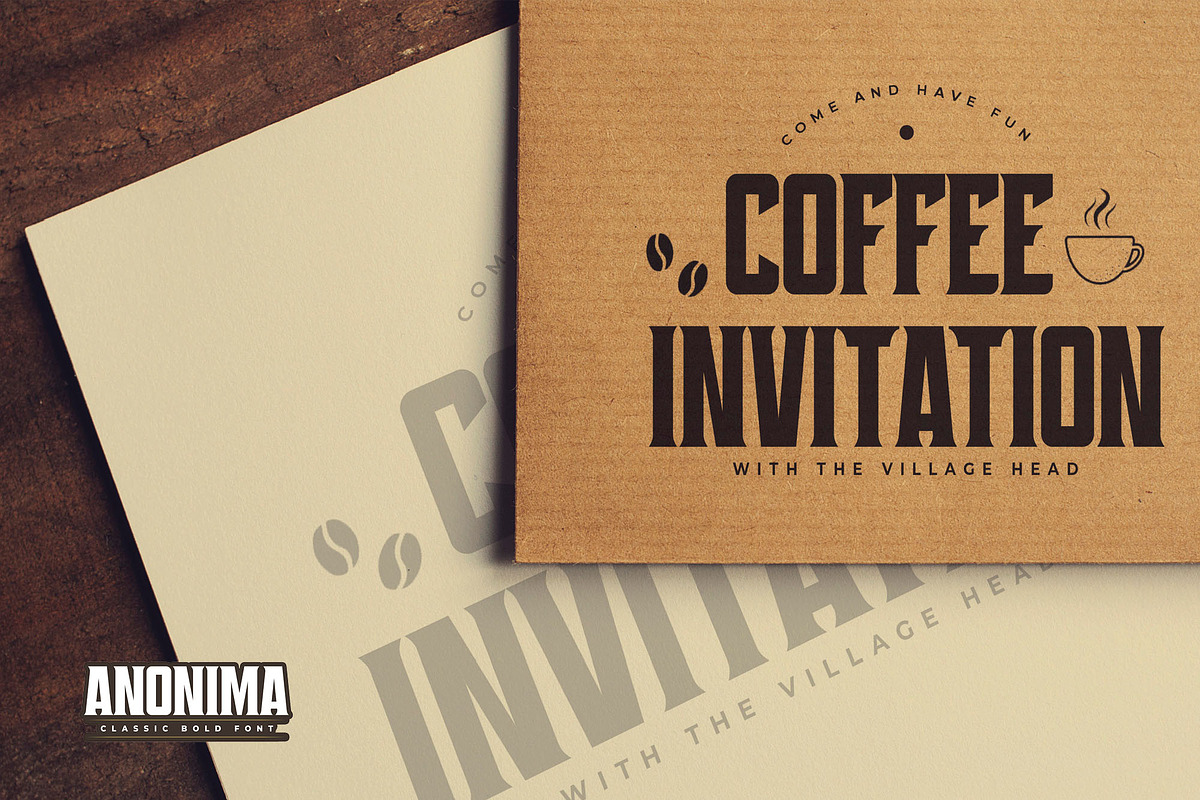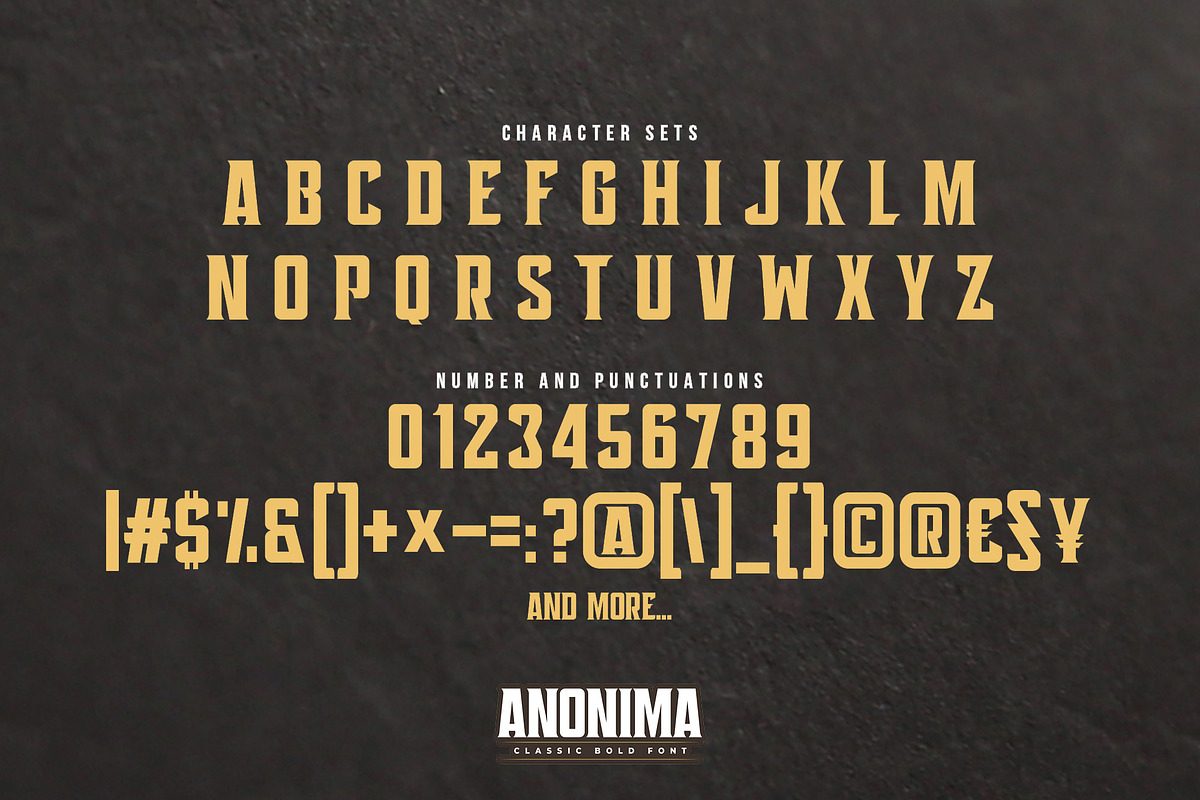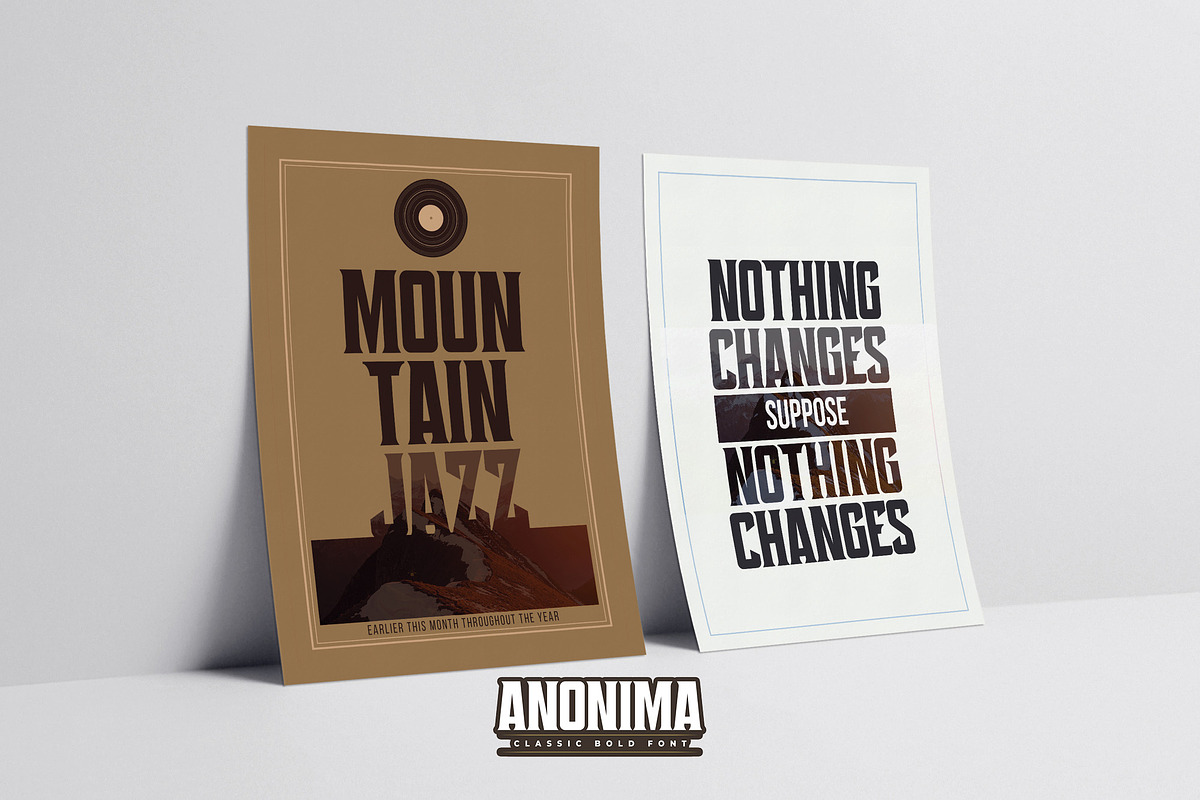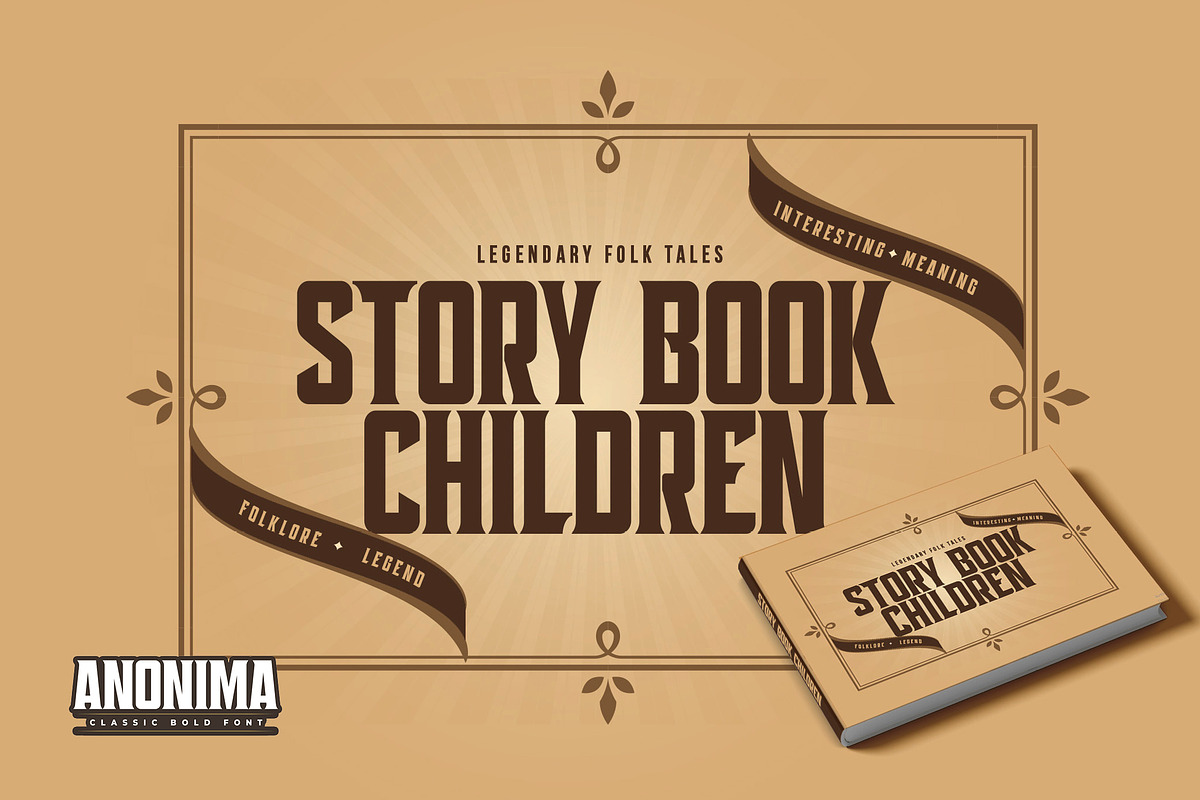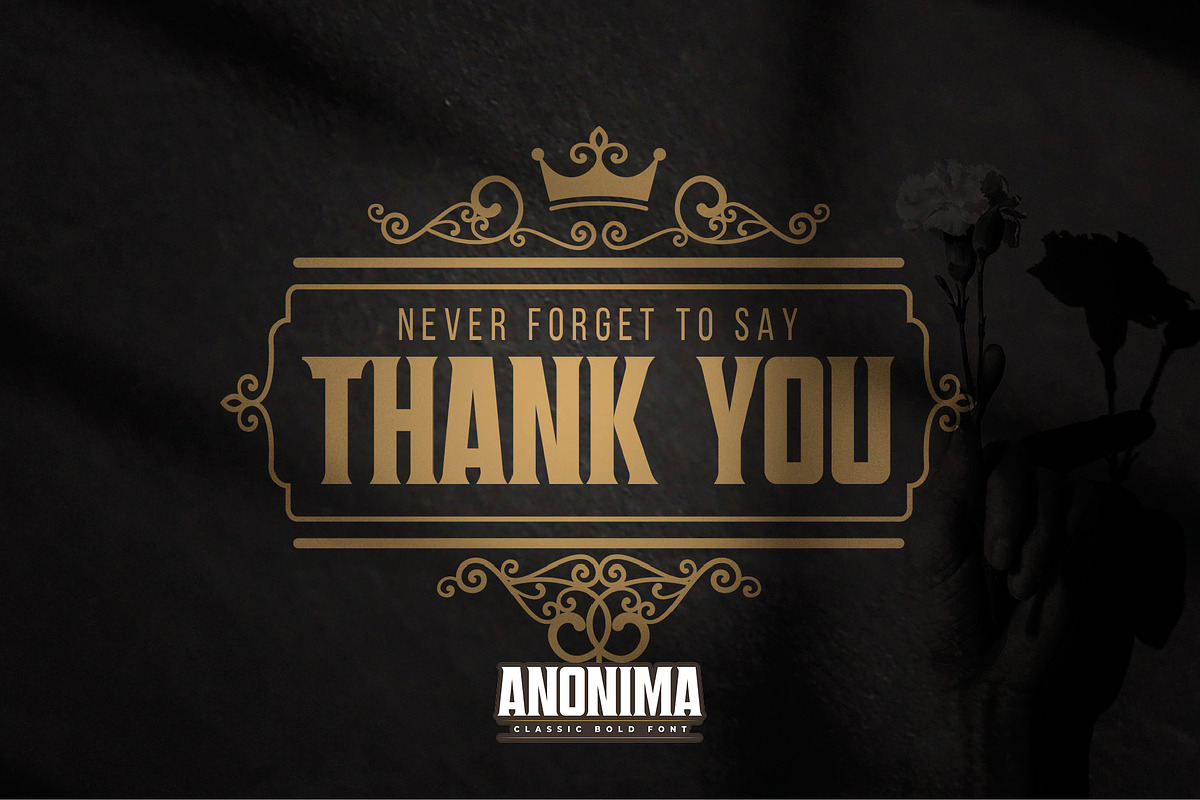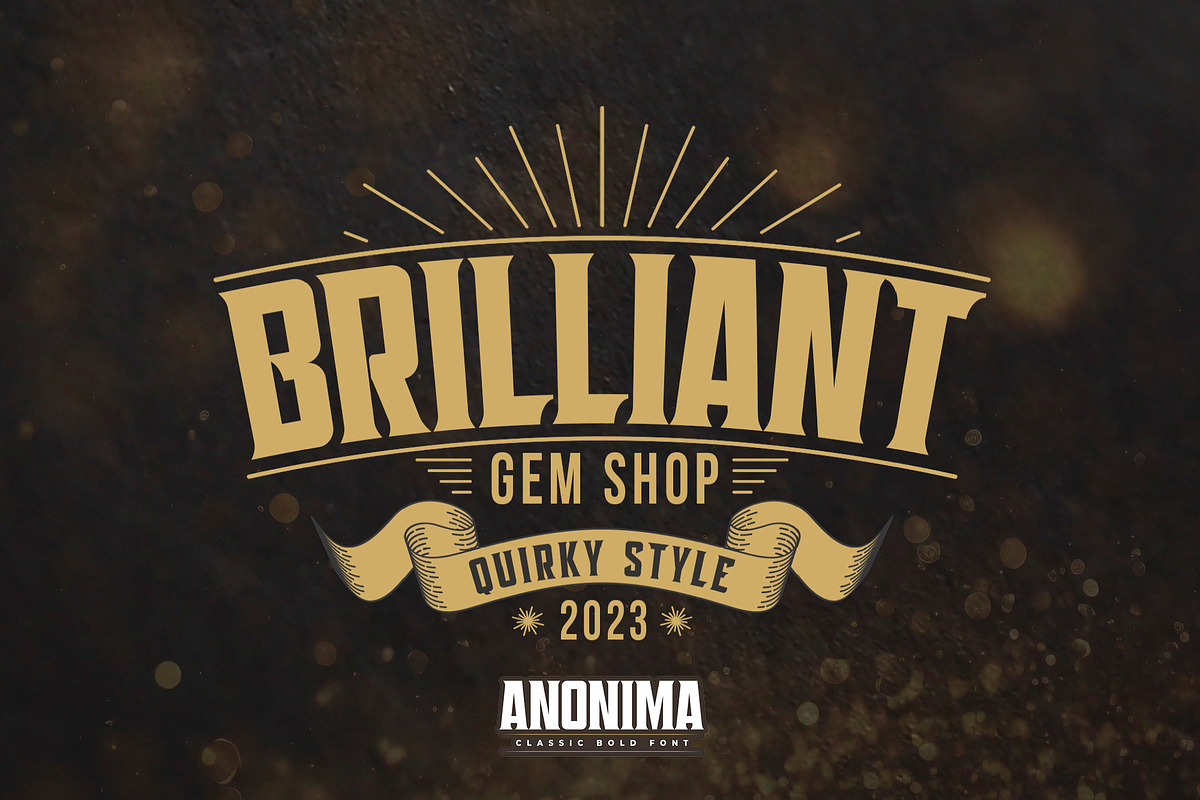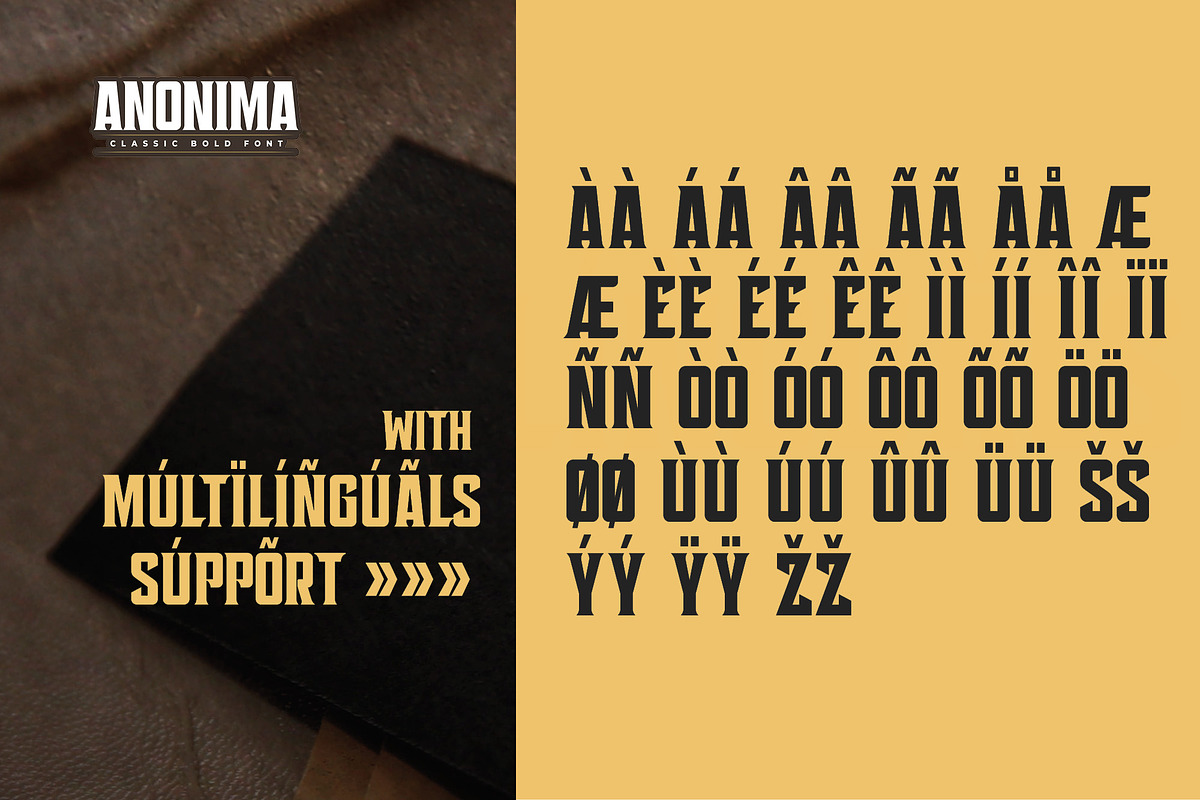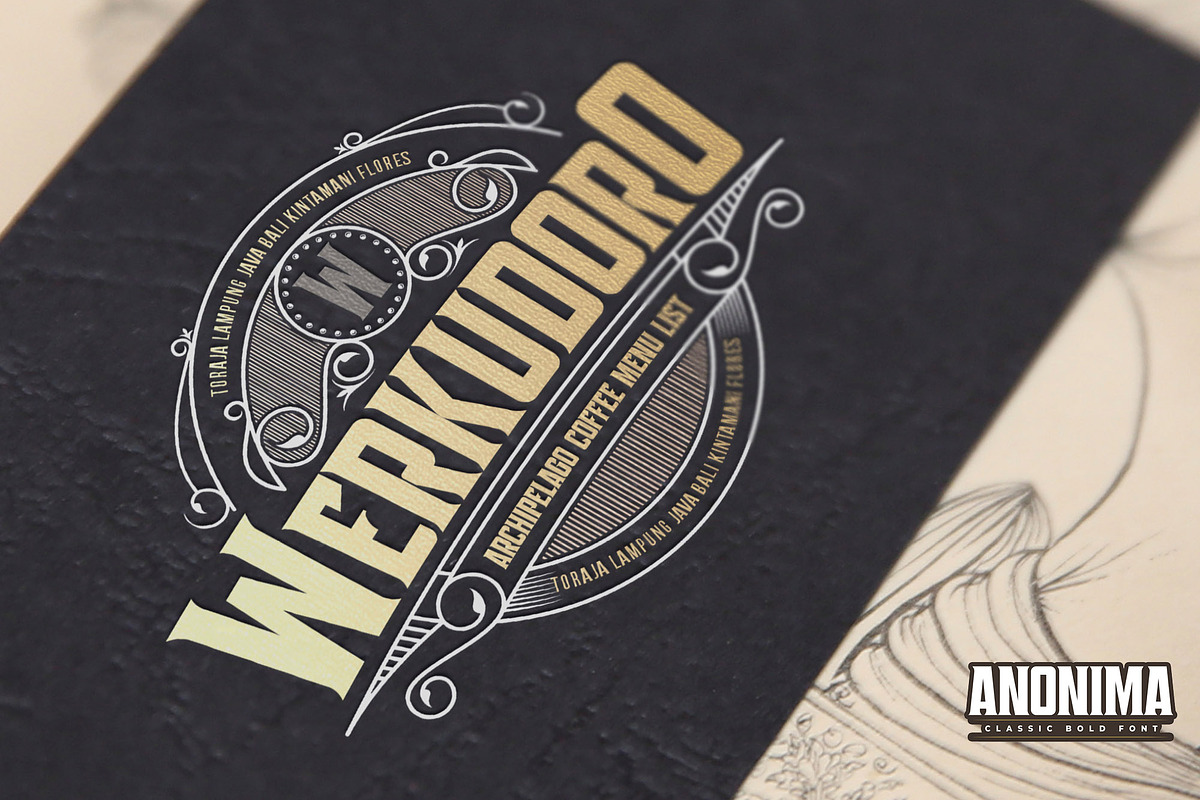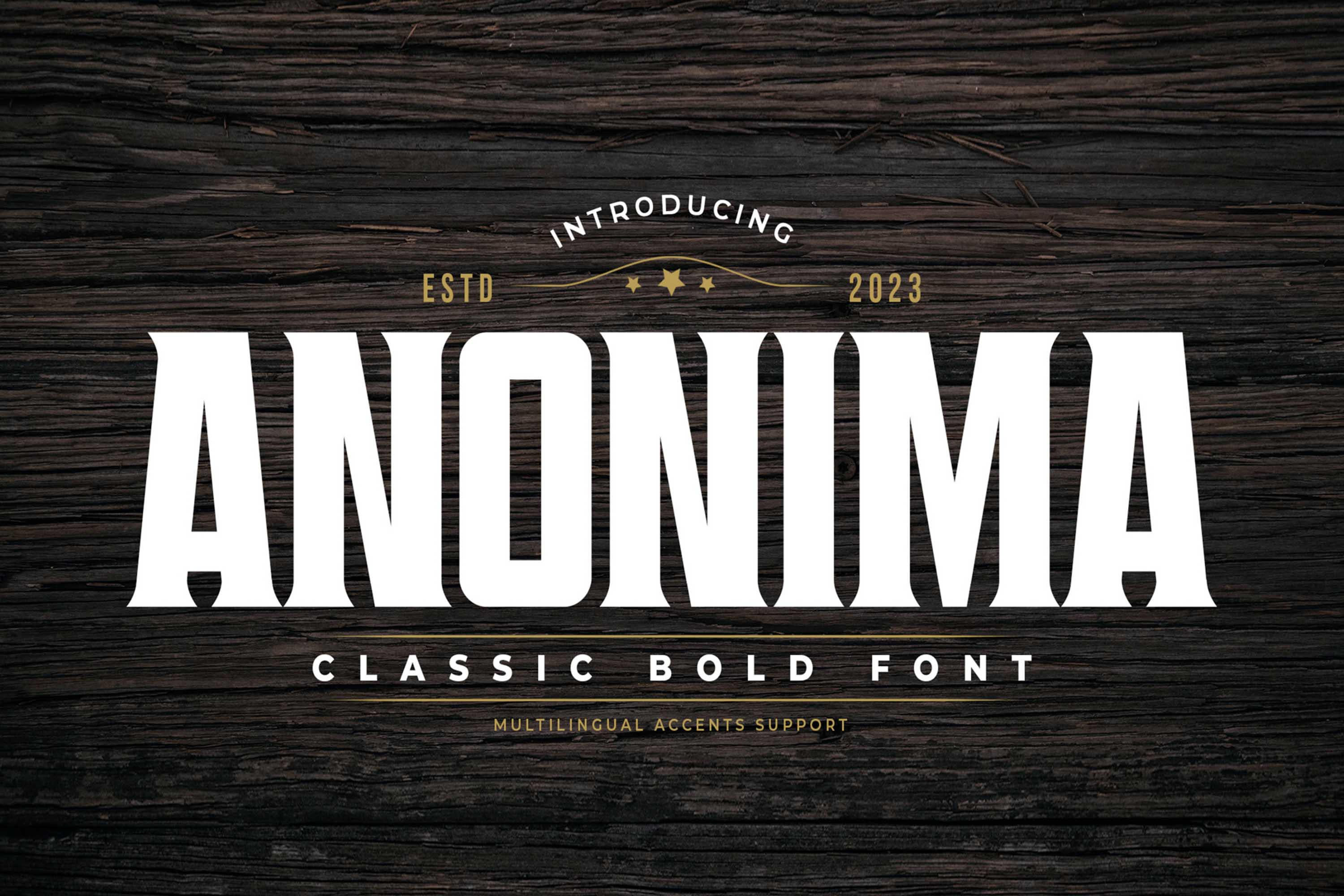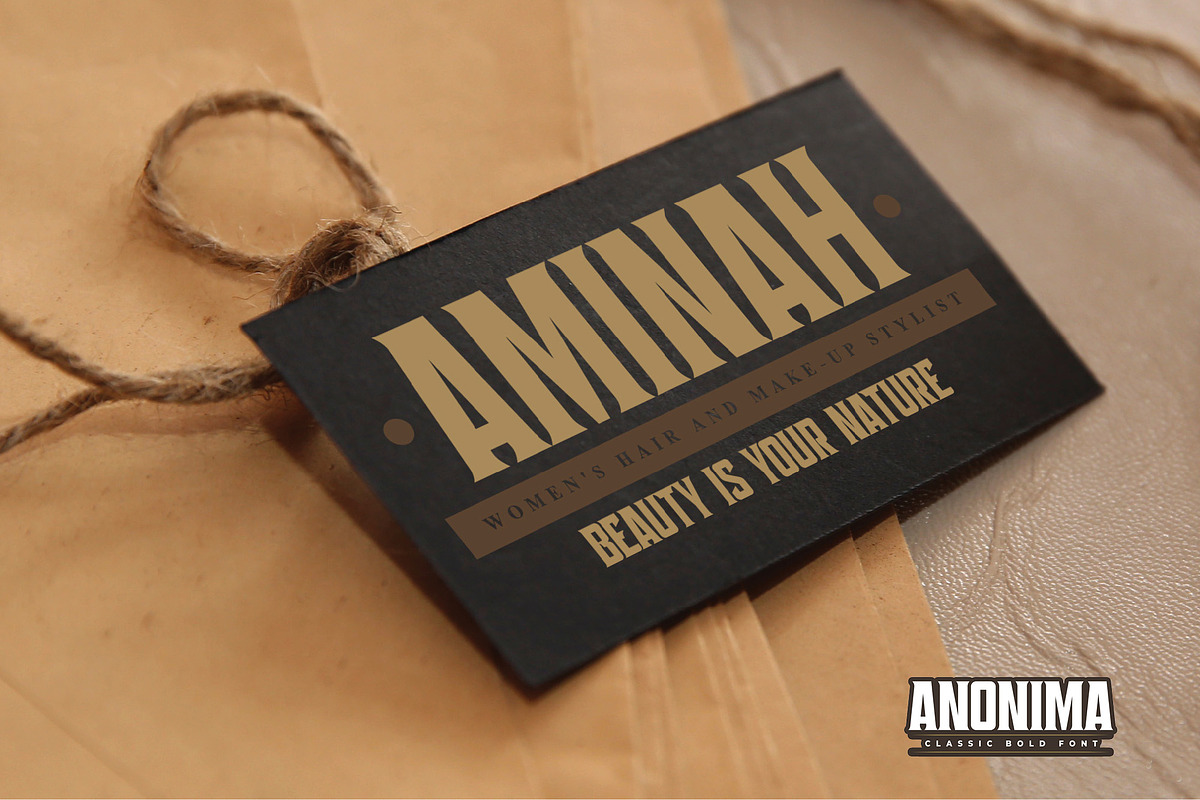
ANONIMA - Classic Bold Font
Hello Everyone, introduce our new product Font ANONIMA This Is Classic Bold Font.This is a Textured Natural Style and classy style with a clear style and dramatic movement. This font ANONIMA is great for your next creative project such as logos, printed quotes, invitations, cards, product packaging, headers, Logotype, Letterhead, Poster, Design this font is great for your creative projects such as watermark on photography, and perfect for logos & branding, invitation,advertisements,product designs, stationery, wedding designs,label ,product packaging, special events or anything that need handwritting taste. That is has charming, authentic and relaxed characteristic more natural look to your text.